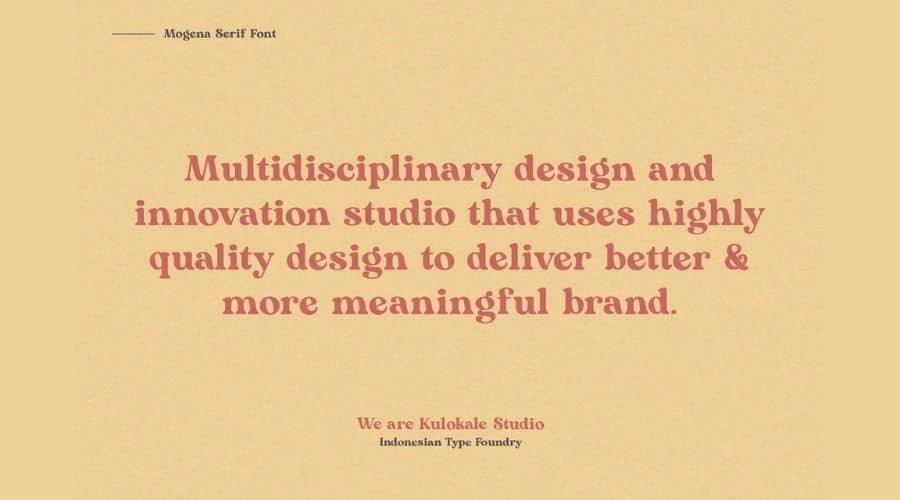
Mogena Font
Mogena is a stylish and modern serif font. It has a distinct and distinct style that will give your design a warm and passionate appearance. The Font was last updated on November 9, 2019. The Font was designed and published on kulokale. This typeface is Unicode PUA encoded, allowing complete access to all extra characters without the need for additional design software. To examine and copy one of the extra characters to paste into your preferred text editor/application, Mac users can use Font Book, and Windows users can utilize Character Map.
Mogena Font is great for logos, branding, invites, stationery, wedding designs, logos, business cards, covers, t-shirts, social media posts, and more. It will also be utilized to generate a stunning images and text in a variety of colours and styles. The typeface is appropriate for a variety of logos from a variety of brands. It goes well with almost any hue. The Font also works well in a variety of periodicals and headlines, and subheadings.
| Name | Mogena Font |
| Style | Serif Typeface. |
| Designer | Kulokale |